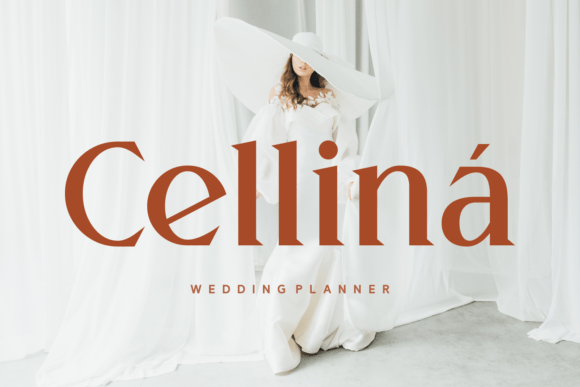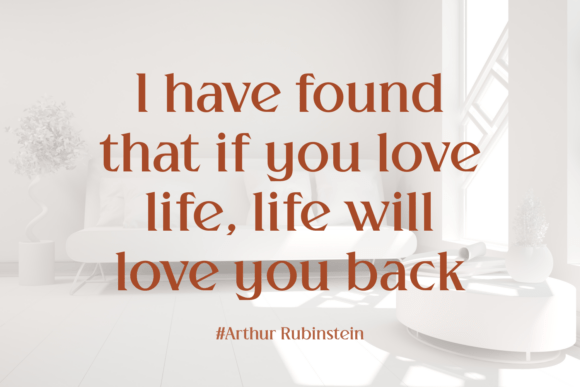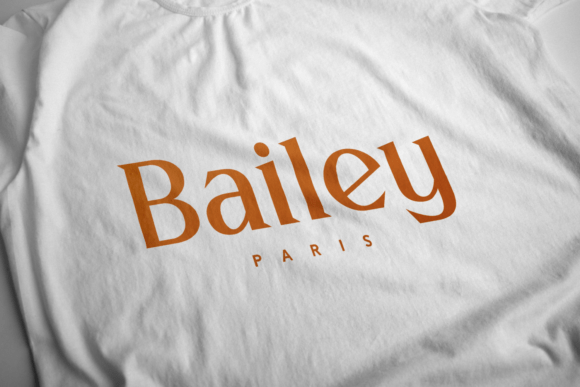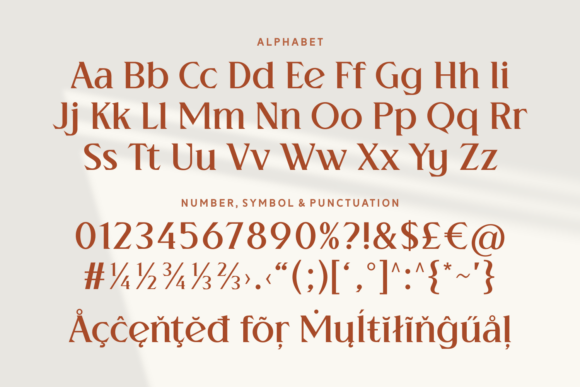
Introducing Future Simple: The Modern Serif Font Revolutionizing Design
In the ever-evolving world of typography, a new font has emerged to capture the essence of modern style and sophistication. Meet Future Simple, a contemporary serif font that is poised to transform the way we approach fashion, lifestyle, and branding projects. With its trendy, chic, and earthy aesthetic, Future Simple is the perfect addition to any designer’s toolkit.
The Birth of Future Simple
Future Simple was born out of a desire to create a font that embodies the spirit of modernity while maintaining a sense of timelessness. Its design is rooted in the principles of simplicity, elegance, and versatility. The font’s creator aimed to craft a typeface that would be both stylish and legible, making it suitable for a wide range of applications, from fashion magazines and lifestyle blogs to branding and advertising campaigns.
Key Features of Future Simple
So, what sets Future Simple apart from other serif fonts on the market? Here are some of its key features:
- Clean Lines and Classic Serifs: Future Simple boasts clean lines, classic serifs, and a refined aesthetic that exudes sophistication and poise.
- Trendy and Earthy Tones: The font’s color palette is inspired by earthy tones, giving it a unique and on-trend feel that will appeal to designers looking for a modern twist on traditional serif fonts.
- Highly Legible: Future Simple is designed to be highly legible, making it perfect for body text, headlines, and titles.
- Versatile and Adaptable: The font is incredibly versatile and can be used across various mediums, from digital platforms to print materials.
Use Cases for Future Simple
Future Simple is an incredibly versatile font that can be used in a variety of contexts. Here are some examples of how you can utilize this modern serif font:
- Fashion and Beauty: Use Future Simple to create stunning fashion editorials, beauty blogs, and branding campaigns that exude style and sophistication.
- Lifestyle and Wellness: Perfect for lifestyle and wellness brands looking for a modern and approachable font that resonates with their audience.
- Branding and Advertising: Future Simple is an excellent choice for branding and advertising projects, providing a professional and polished look that will elevate your brand’s visual identity.
Why Choose Future Simple?
With so many fonts available, why should you choose Future Simple for your next project? Here are a few compelling reasons:
- Unique Aesthetic: Future Simple offers a distinctive and stylish aesthetic that will set your designs apart from the competition.
- Improved Readability: The font’s high legibility ensures that your content is easily readable, making it perfect for body text and headlines.
Future Simple is a game-changing modern serif font that is poised to revolutionize the world of design. Its trendy, chic, and earthy aesthetic makes it perfect for fashion, lifestyle, and branding projects. With its clean lines, classic serifs, and highly legible design, Future Simple is an excellent addition to any designer’s toolkit. Whether you’re a seasoned designer or a crafty DIY enthusiast, Future Simple is sure to elevate your designs and take them to the next level.